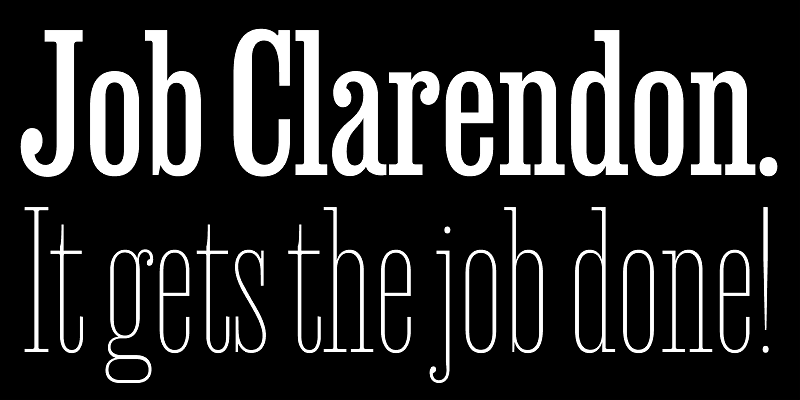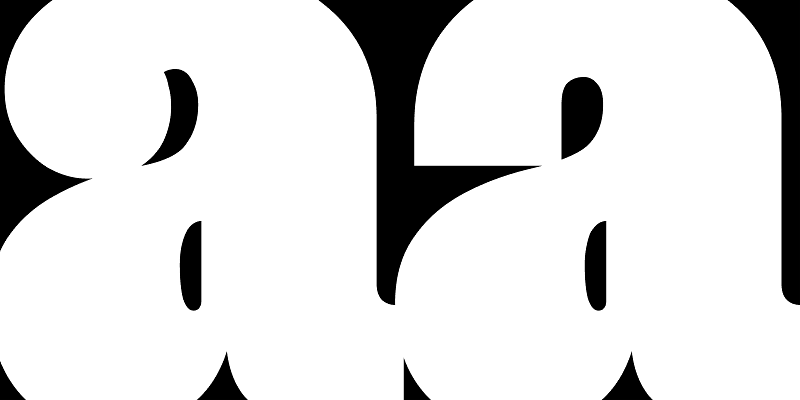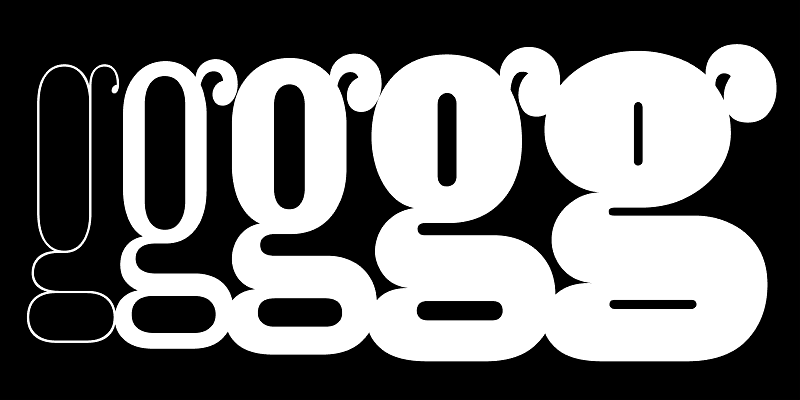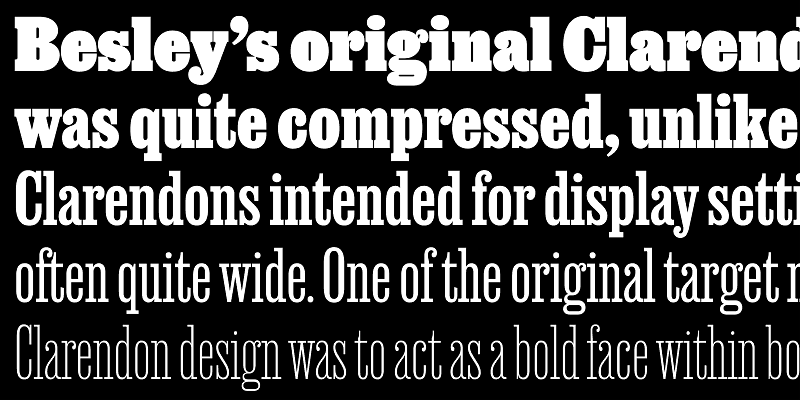
Job Clarendon is an homage to ‘job printing’ and the Condensed Clarendons used in posters and flyers in the heyday of letterpress printing. A collaboration between David Jonathan Ross and Bethany Heck, this interpretation focuses on the style’s adaptability, taking it both thinner and heavier than most of its nineteenth-century exemplars dared to go. Throughout this expansive range, Job Clarendon maintains its dense charm, with chunky slab serifs, ample ball terminals, and square-terminal alternates.
David Jonathan Ross draws letters of all shapes and sizes for custom and retail typeface designs from his studio in the woods of Western Massachusetts. A native of Los Angeles, He began drawing typefaces at Hampshire College and joined The Font Bureau in 2007 where he honed his bézier-wrangling skills. Now he publishes his typeface designs at his own foundry, DJR, as well as working on projects with Type Network and developing unusual display faces for his Font of the Month Club.